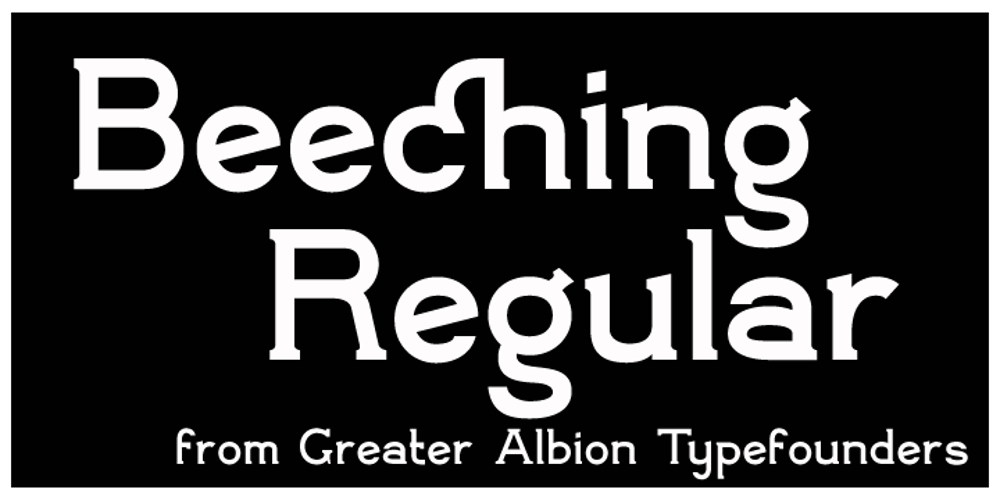
Beeching Font Family was designed by Paul James Lloyd and published by Greater Albion Typefounders. Beeching contains 6 styles and family package options. Beeching is a family of six typefaces designed to combine extreme legibility with a hint of retrospective character. It is inspired by the lettering used in the Leslie Green designed stations of the London Underground and is as up to date today as it was the day those stations opened. The Beeching faces (Regular, Bold, Small Capitals, Small Capitals Bold, Shadowed and Small Capitals Shadowed) are ideal for use in large scale signage that needs to be seen over long distances. We feel the family provides a clear demonstration that traditional details, such as serifs and ligatures serve to enhance legibility.